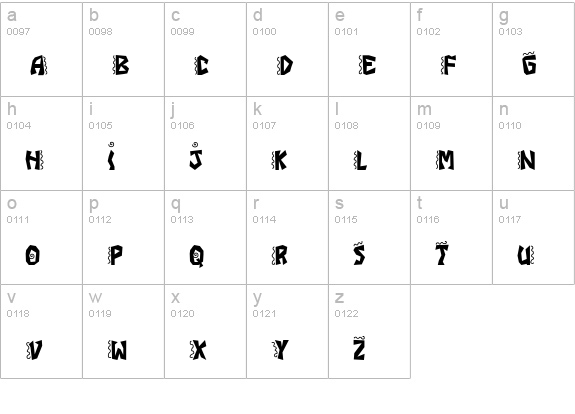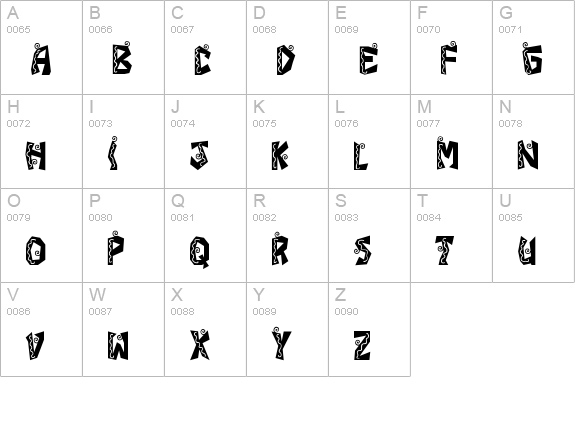
JI Chimichanga Font Details
The JI Chimichanga font is a whimsical and playful typeface that exudes a sense of fun and creativity. With its unique design elements and quirky details, this font is sure to add a touch of personality to any project. Whether you're looking to create eye-catching headlines, charming invitations, or playful social media graphics, JI Chimichanga has got you covered. What's even better is that this font is available for free download at FontsMarket.com. So go ahead and unleash your creativity with JI Chimichanga - the perfect choice for those looking to add a touch of whimsy to their designs.